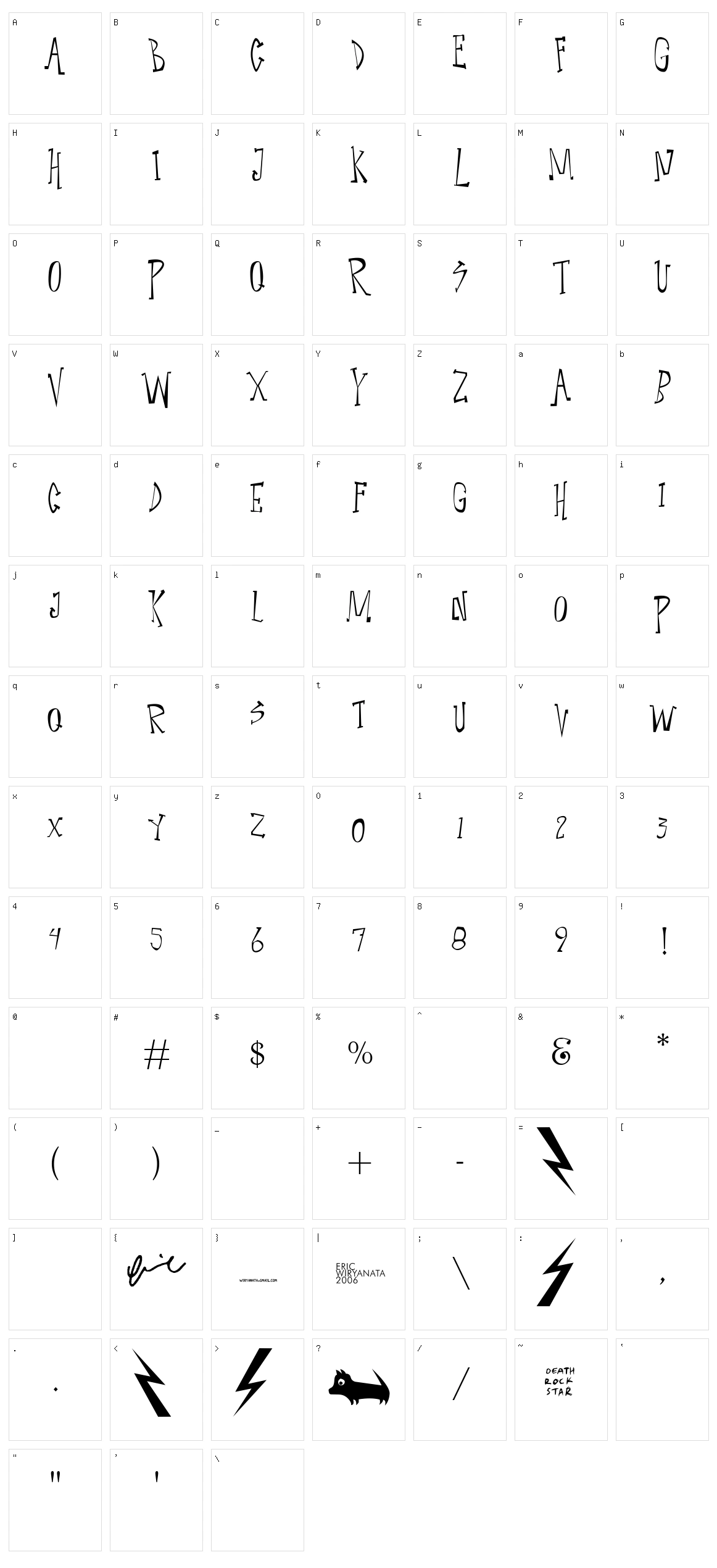
By Eric Wiryanata. July 2006.
I often draw and redraw this kind of font for my Design job. then i think why don't just i make it to a font file.
and here we go i name it NARCOLEPTIC DANCE.